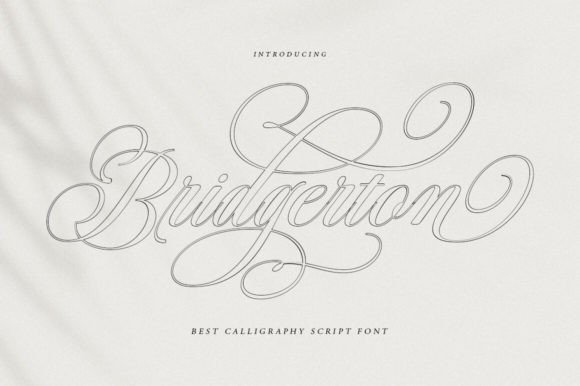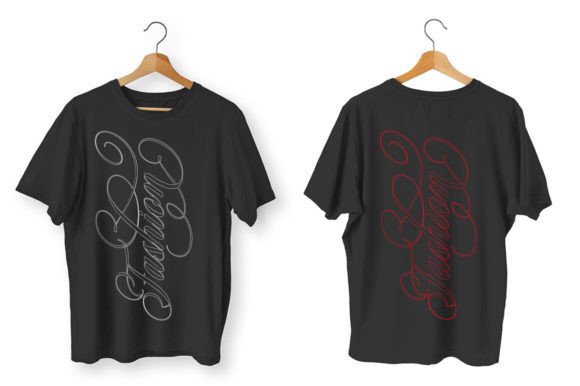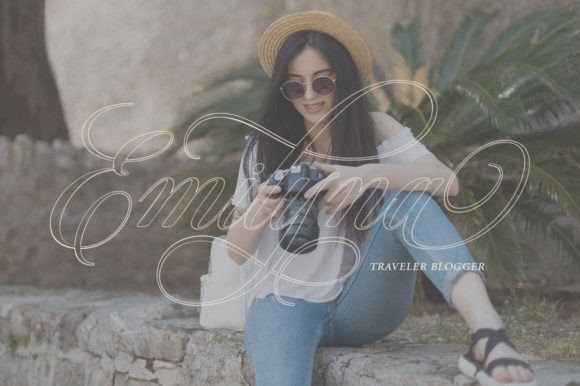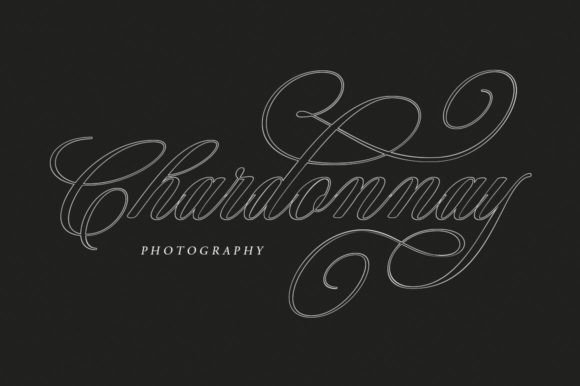
Bridgerton Outline Font
About the Bridgerton Outline Font
Introducing the Bridgerton Outline Font, a beautifully crafted typeface designed to elevate your creative projects. Bridgerton Outline is a calligraphy font that comes with exquisite changing characters, a kind of classic decorative copper script with a modern touch, designed with high details to bring out the elegance of the style. Bridgerton Outline Font is attractive because the typeface is smooth, clean, feminine, sensual, glamorous, simple, and very easy to read, because of the many luxurious letter connections. I also offer several viable style alternatives for many letters. The classic style is very suitable to be applied in various formal forms such as invitations, labels, restaurant menus, logos, fashion, makeup, stationery, novels, magazines, books, greeting/wedding cards, packaging, labels, or all kinds of advertising purposes.
Bridgerton Outline Font Usage Examples
Bridgerton Outline Font Example